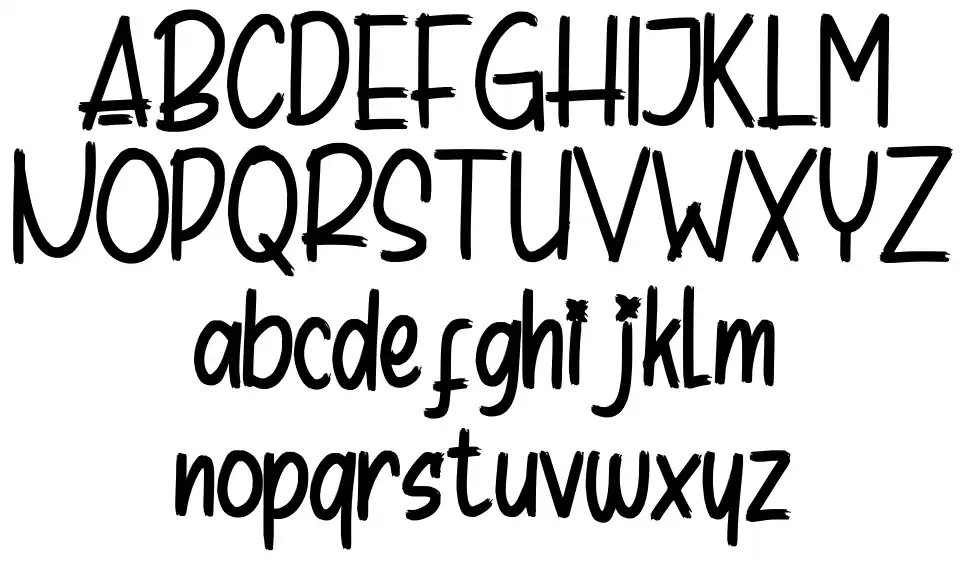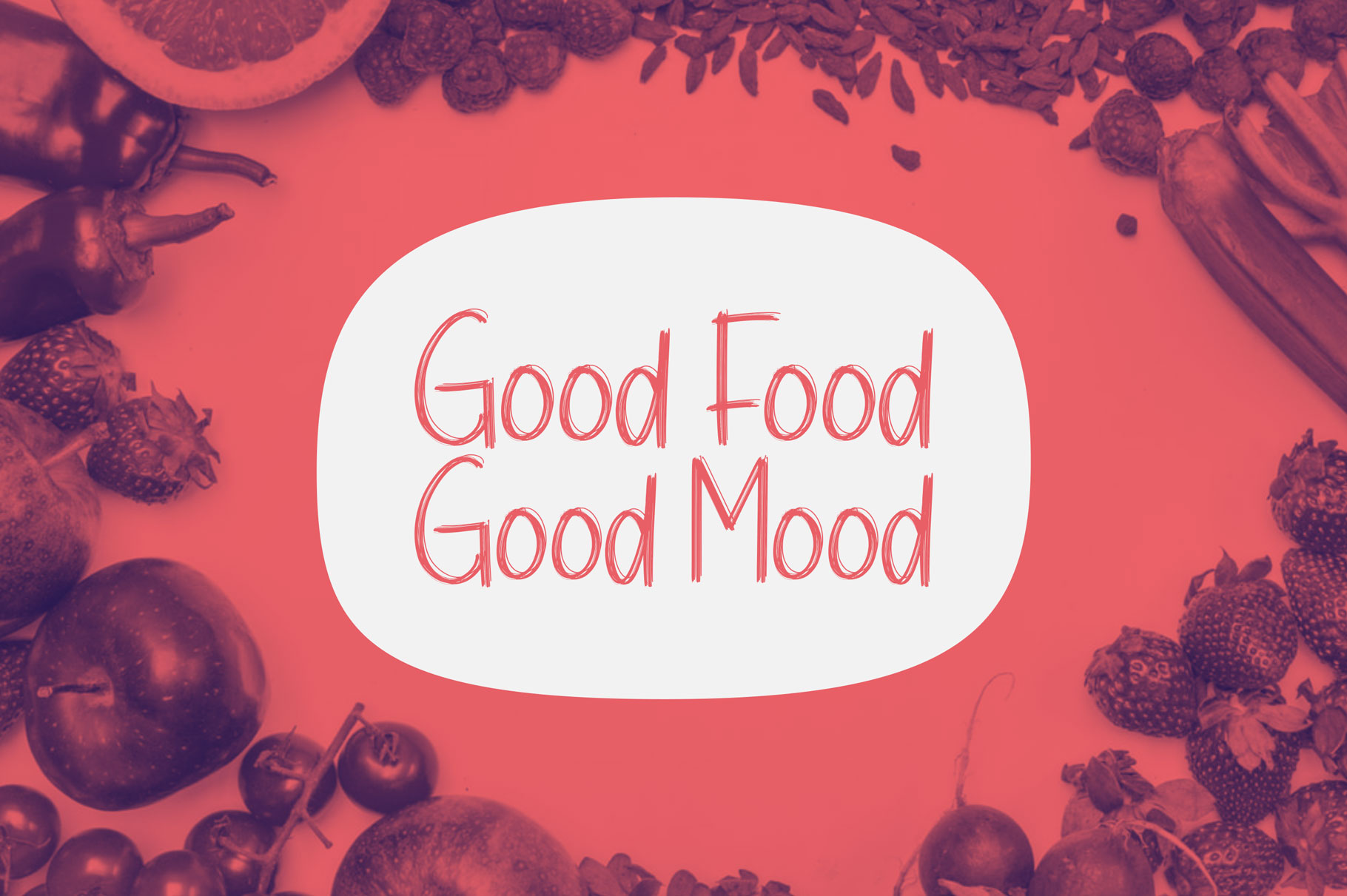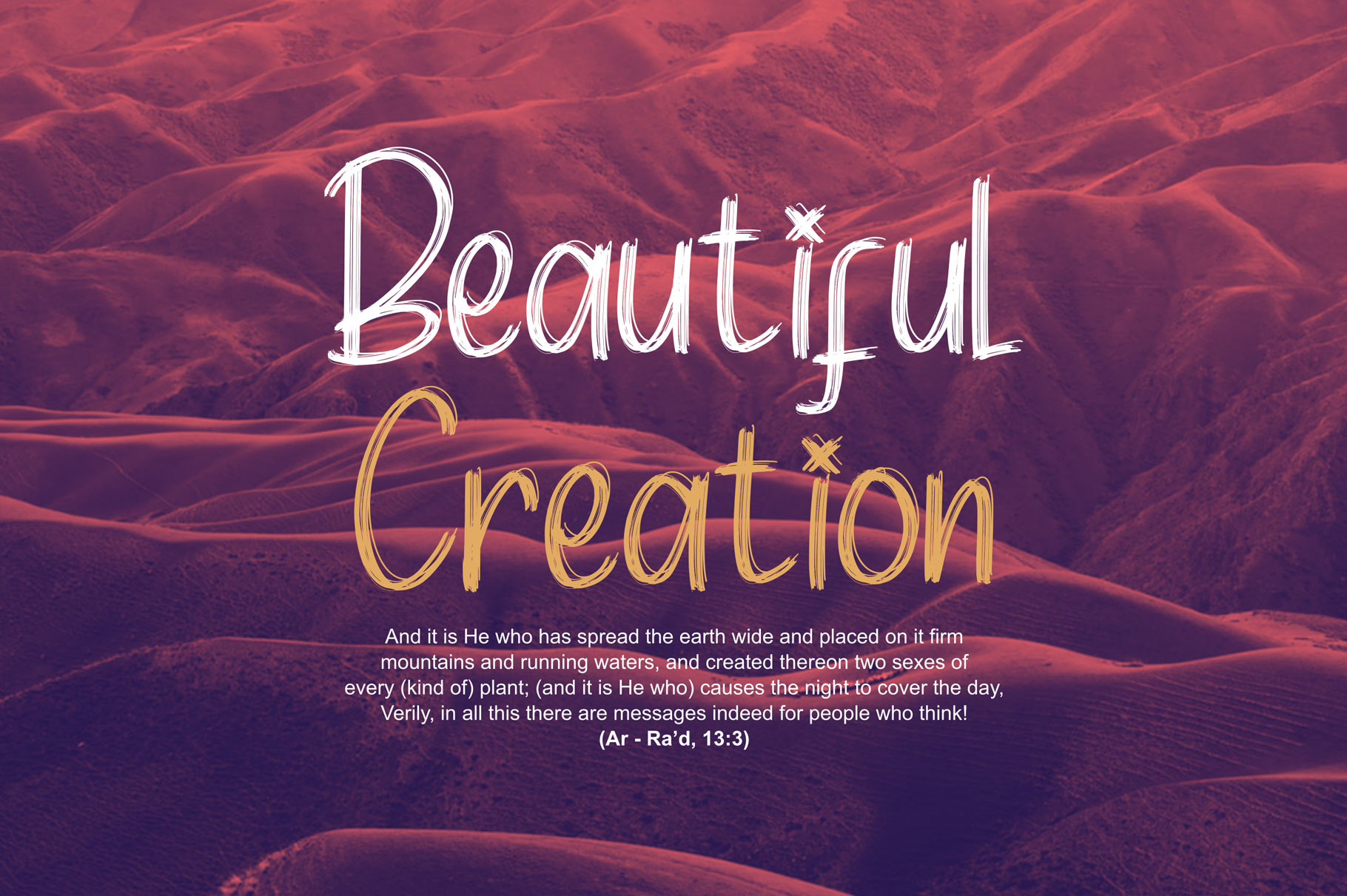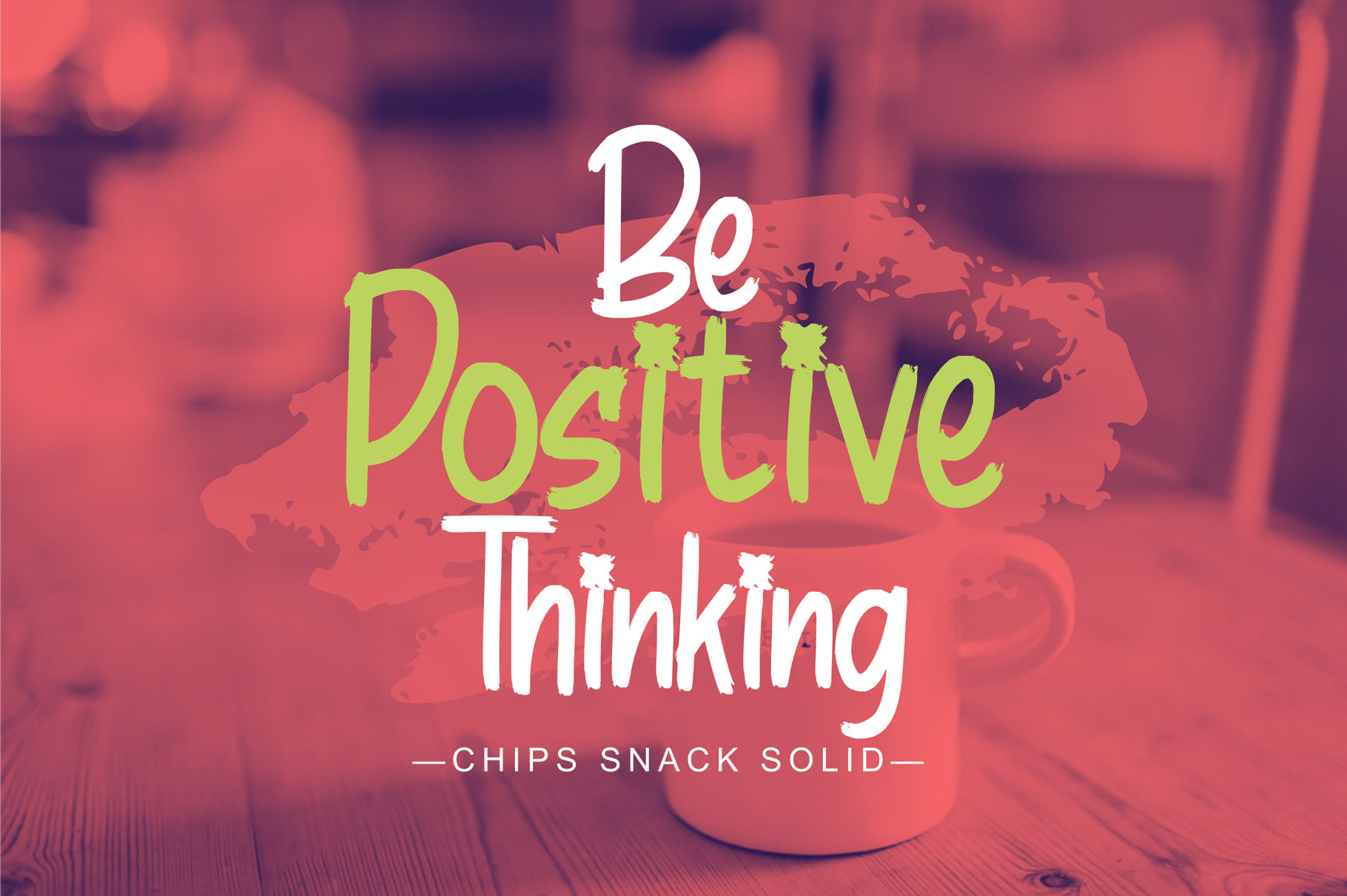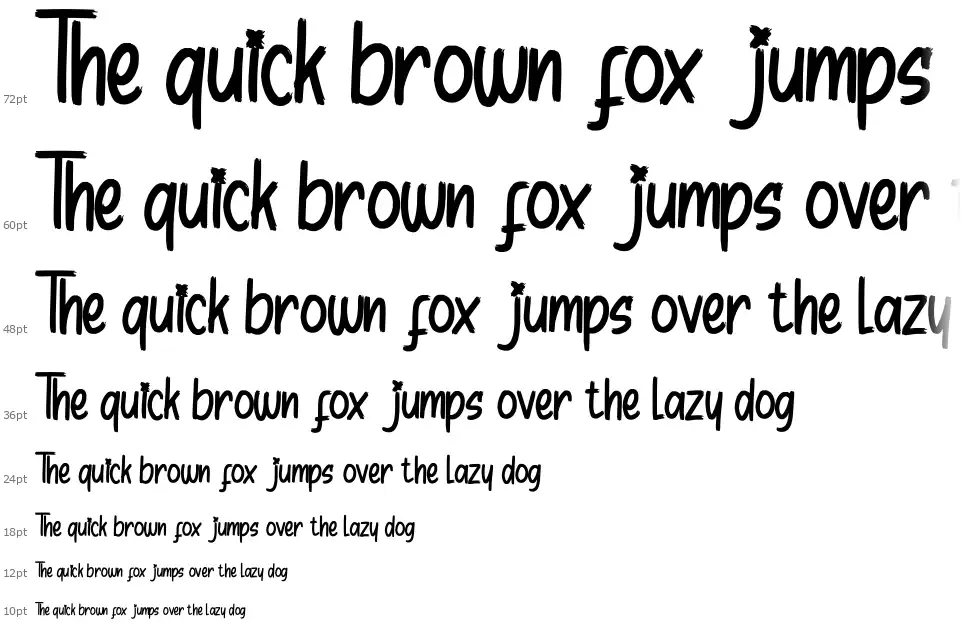
Chips Snack Solid Font . — chips snack! Chips snack est parfait pour une. Chips snack is perfect for short typography, logotype, a. Chips snack is perfect for short. — chips snack! A handwrittenfont with 2 styles, regular (brush texture) and solid. Chips snack by omotu studio. Un texte écrit à la main font avec 2 styles, regular (texture brosse) et solid. Chips snack is perfect for short. — latest from the whatfontis forum. A great choice for highlighting your design elements. — chips snack solid font free download.
Chips snack est parfait pour une. Chips snack is perfect for short typography, logotype, a. — chips snack! Chips snack by omotu studio. Un texte écrit à la main font avec 2 styles, regular (texture brosse) et solid. — chips snack solid font free download. A great choice for highlighting your design elements. — latest from the whatfontis forum. A handwrittenfont with 2 styles, regular (brush texture) and solid. — chips snack!